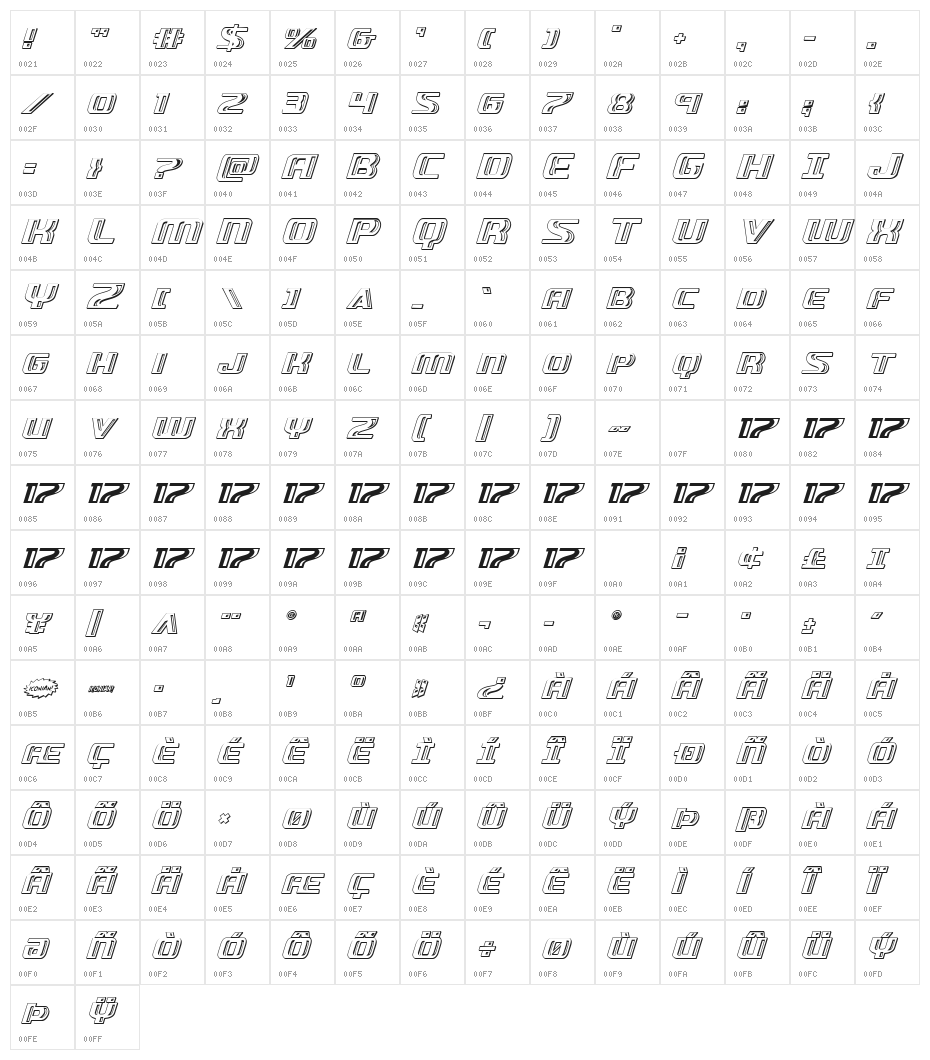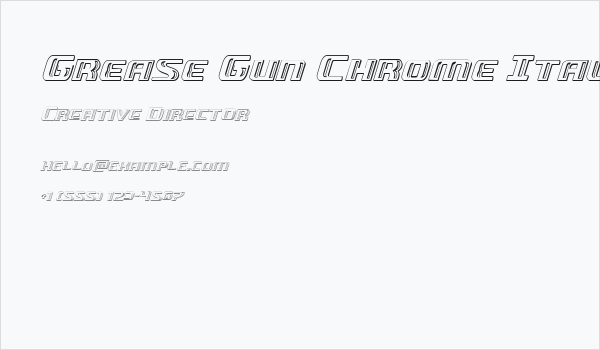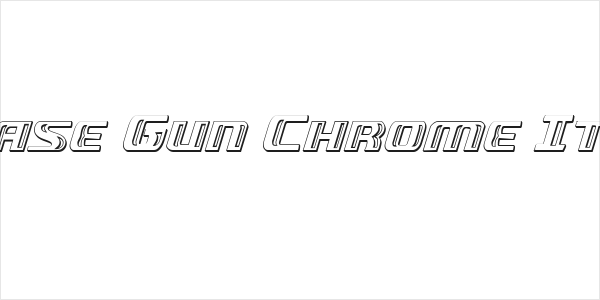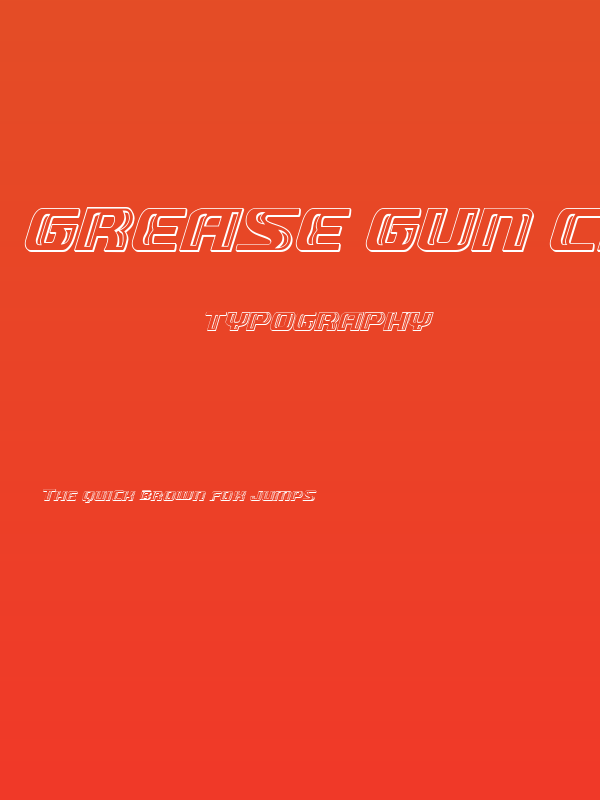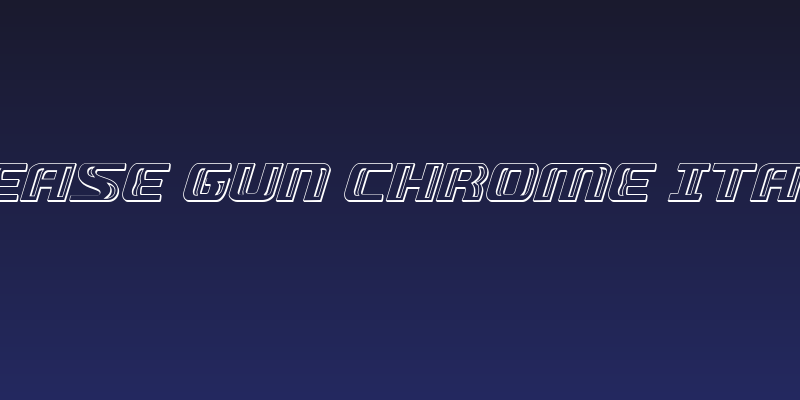
Grease Gun Chrome Italic Font
Grease Gun Chrome Italic Description
This font features a bold, italicized style with a distinct chrome-like appearance. The characters are outlined with a double line, giving them a three-dimensional effect. The angular and geometric design of each letter adds a modern and futuristic touch. The uppercase and lowercase letters maintain a consistent style, with sharp edges and a slight slant to the right, enhancing the italic effect. The numbers and special characters follow the same design principles, ensuring uniformity across all glyphs. This font is eye-catching and ideal for projects that require a strong visual impact.
| Proposed Projects | Ideal for automotive branding, futuristic designs, video game titles, and tech-related logos. |